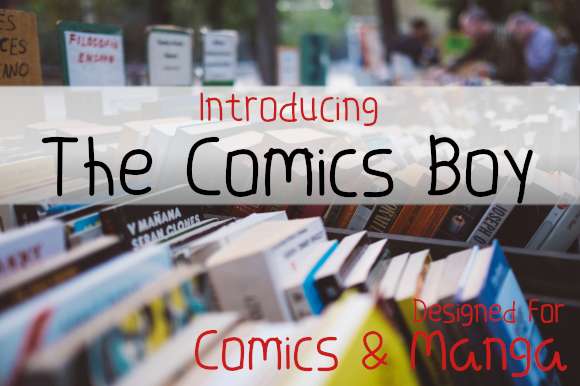
The Comics Boy Font
About The Comics Boy Font
The Comics Boy is a cool and casual comic-themed font with an authentic feel. Get inspired by its whimsical charm.